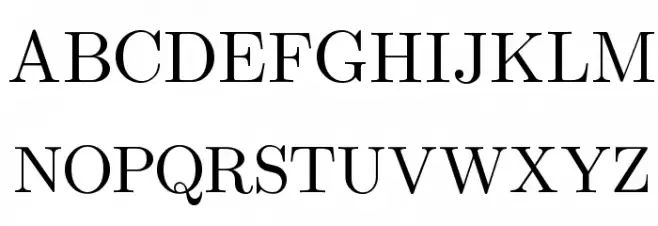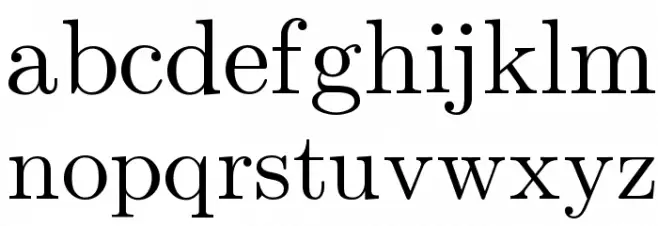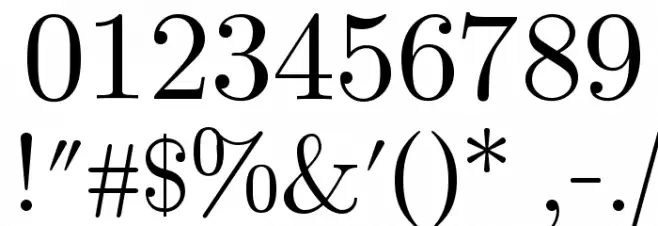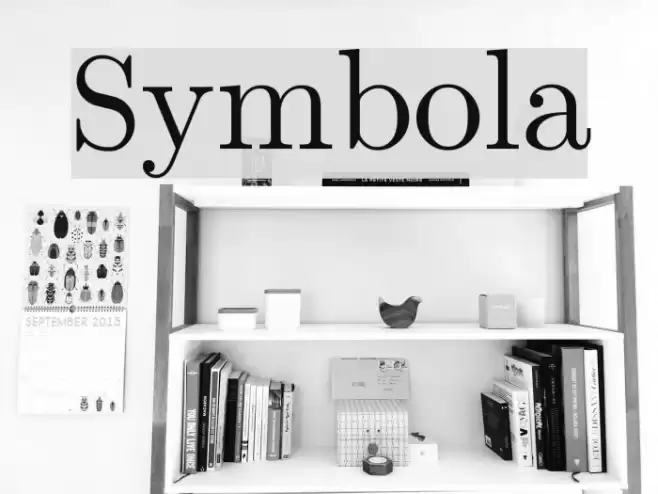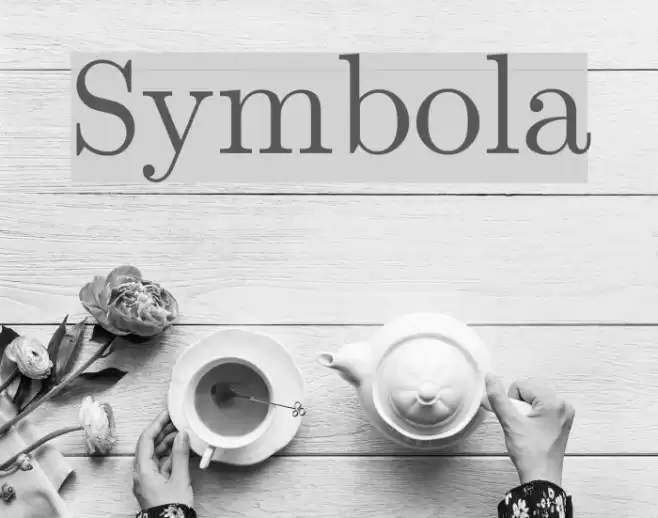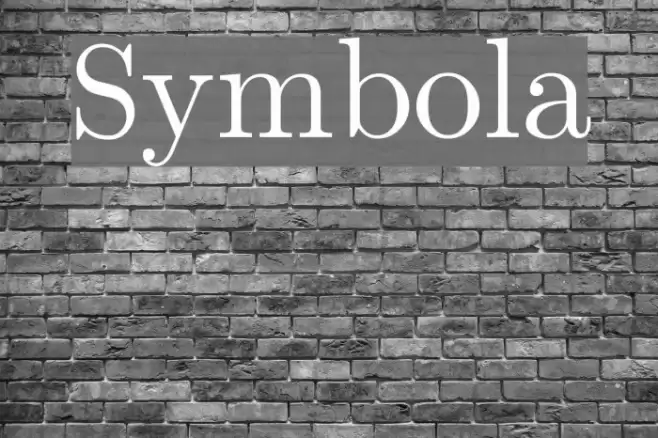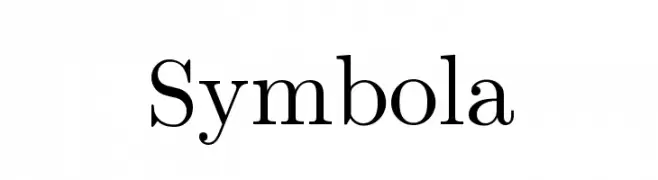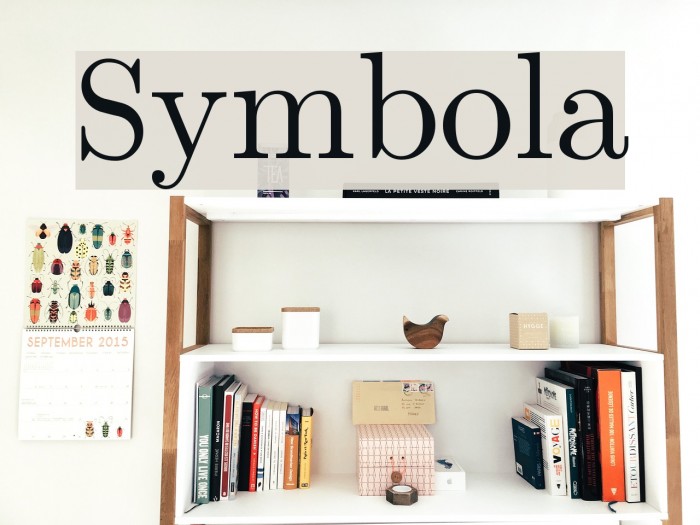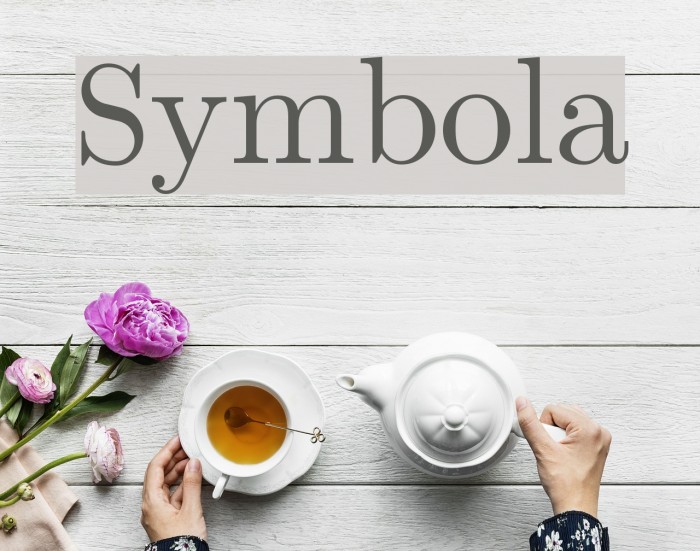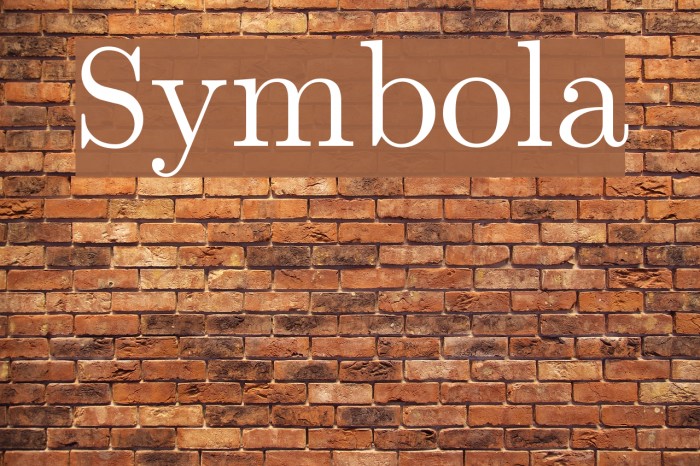
Symbola
This font features a classic serif design with elegant and refined strokes. The uppercase letters are bold and commanding, while the lowercase letters maintain a balanced and harmonious appearance. The numerals are clear and distinct, making them easily readable. Special characters are well-integrated, adding versatility to the font. The overall design is timeless, suitable for both traditional and modern applications. The serifs are pronounced, providing a sense of stability and formality. This font is ideal for projects that require a touch of sophistication and clarity.
A classic serif font with elegant strokes and pronounced serifs.
- Proposed Projects: Ideal for editorial design, book covers, formal invitations, and branding materials.
- Category: Serif
- Overall Style: Classic